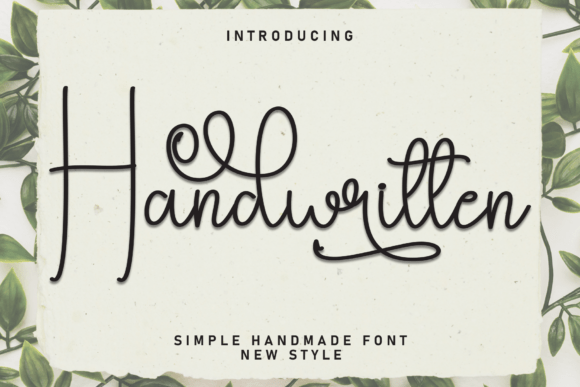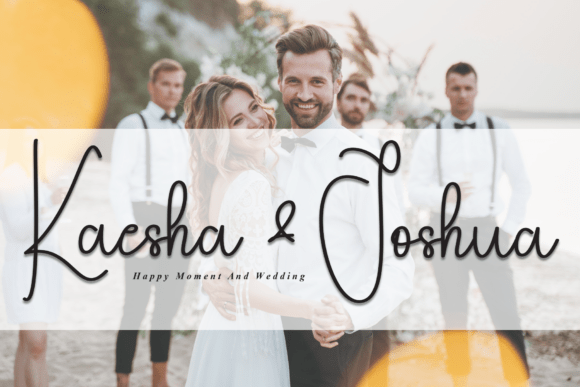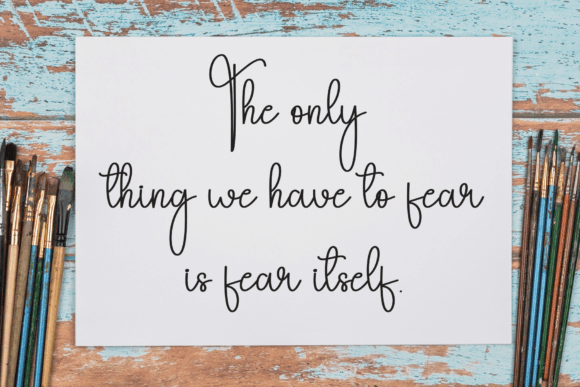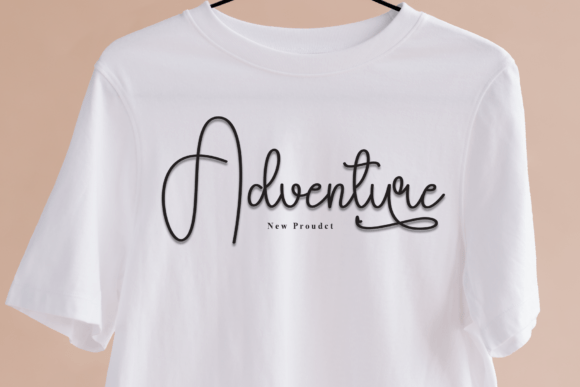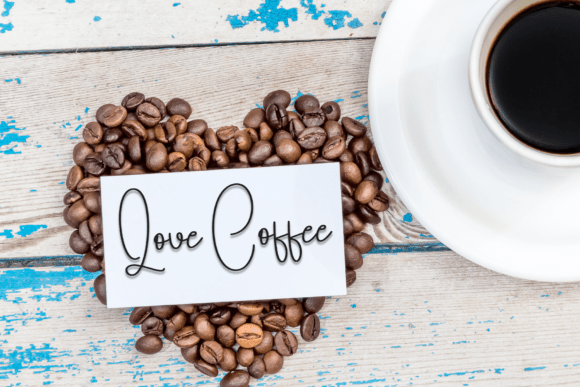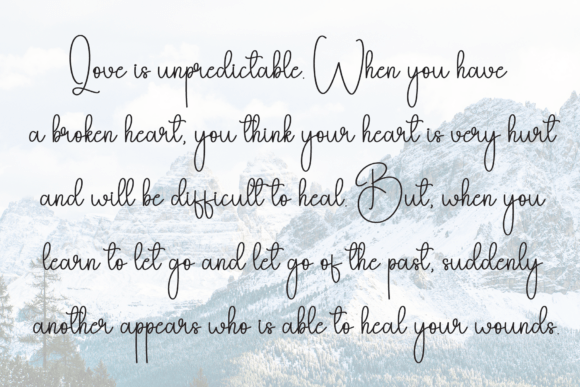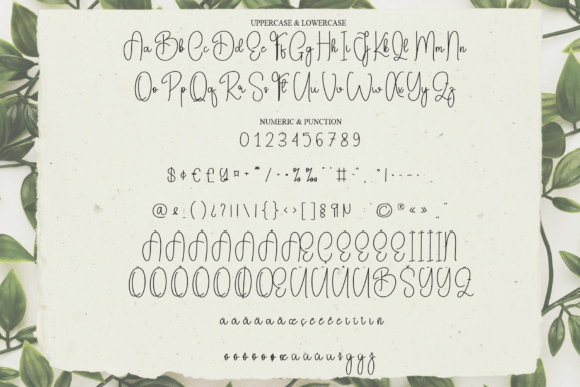
Unleashing the Charm of Handwritten Sentiments
Do you remember the feeling of receiving a handwritten letter from a loved one? The way the scribbled words and loops of the pen danced across the page, filling your heart with warmth and love? It’s a feeling that’s hard to replicate in the digital age, but with the right tools, we can bring that same charm to our designs.
Introducing “Sweet Symphony”, a delightful display font that captures the essence of handwritten sentiments. This endearing font is perfect for adding a personal touch to your designs, from wedding invitations to greeting cards and more. With its playful personality and friendly disposition, Sweet Symphony is a valuable addition to any designer’s toolkit, allowing them to create designs that feel warm, inviting, and truly special.
Key Features of Handwritten Font
- Unique Characteristics: Authentic handwritten feel, natural imperfections, and subtle variations in line width and spacing
Designer Review: Handwritten Font
Overall, I’m quite impressed with the Handwritten Font. It’s a beautiful, high-quality font that can add a personal touch to any design project. ✨
- The font’s expressive, cursive style makes it perfect for titles, headings, and quotes.
- It’s highly customizable, allowing you to adjust the size, color, and spacing to suit your design needs.
- The font’s ligatures and swashes add a touch of elegance and sophistication.
- It’s scalable and looks great in both print and digital formats.
- ⚠️ The font may not be the best choice for body text, as it can be difficult to read in smaller sizes.
- ⚠️ Some users may find the font’s cursive style too ornate or distracting.
Overall, I think the Handwritten Font is a great addition to any designer’s toolkit. While it may have some limitations, its unique style and high-quality design make it a valuable asset for creating visually appealing and engaging designs.
Alternatives to Handwritten Font
Script Font
Script fonts are elegant and cursive, often used for titles, headings, and short paragraphs. They are suitable for formal designs, wedding invitations, and luxury branding. Script fonts can be more formal than Handwritten Font, making them ideal for high-end designs. However, they may lack the personal touch and imperfections of Handwritten Font.
Brush Script Font
Brush Script fonts mimic the look of hand-painted or brush-written text. They are often used for creative and artistic designs, such as book covers, posters, and advertisements. Brush Script fonts are more casual than Handwritten Font and can add a touch of whimsy to designs. However, they may not be suitable for formal or professional designs.
Slab Serif Font
Slab Serif fonts have a bold and geometric appearance, often used for headings and titles. They are suitable for modern and minimalist designs, such as magazines, newspapers, and corporate branding. Slab Serif fonts are more geometric and structured than Handwritten Font, making them ideal for designs that require a sense of order and clarity.
Display Font
Display fonts are designed to be eye-catching and attention-grabbing, often used for titles, headings, and short paragraphs. They are suitable for creative and artistic designs, such as posters, advertisements, and packaging. Display fonts can be more dramatic and playful than Handwritten Font, making them ideal for designs that require a sense of excitement and energy.